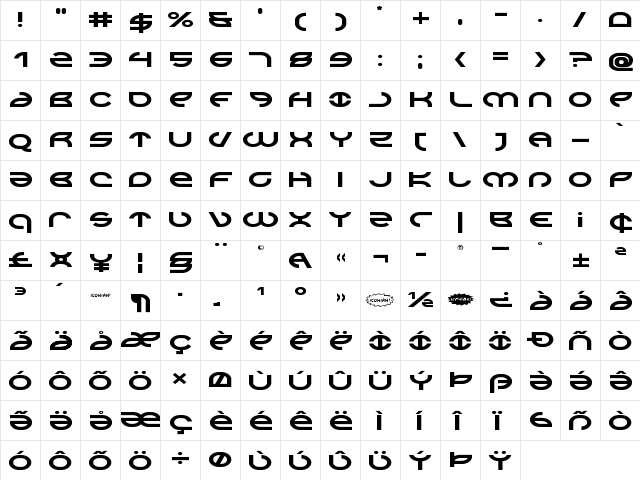
Aetherfox Expanded Font Preview
Aetherfox Expanded Expanded
Design Context for Aetherfox Expanded Typeface
Aetherfox Expanded is a composed and adaptable typeface that performs quietly and consistently across a wide range of design contexts.
Pro Tip: Use Aetherfox Expanded in both headline and body roles to test its range before committing to a single application.